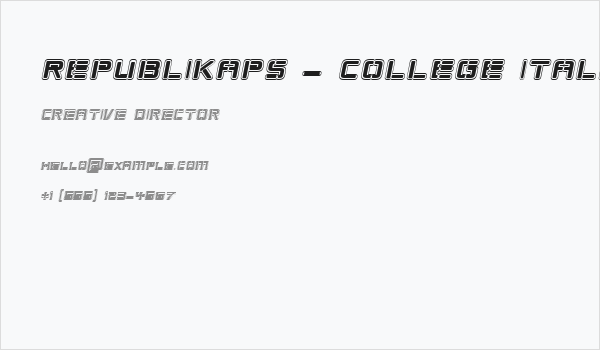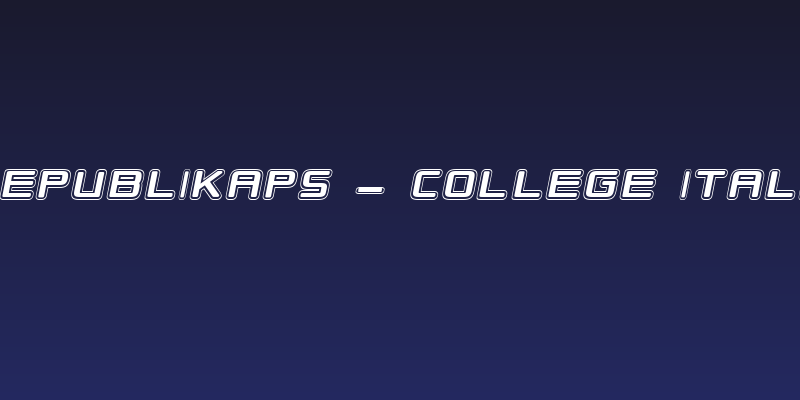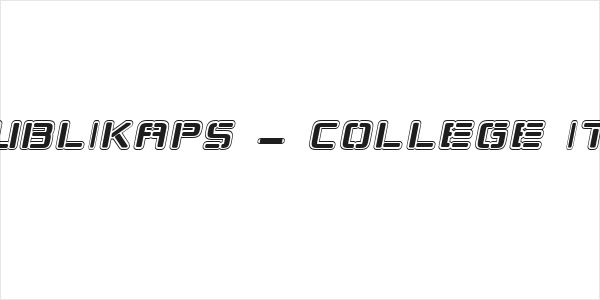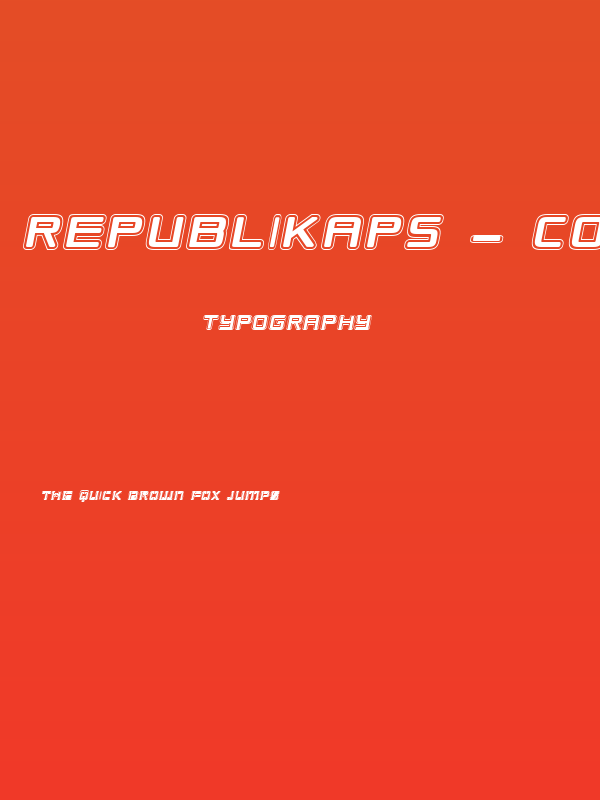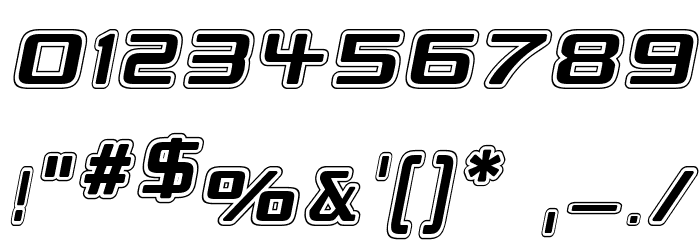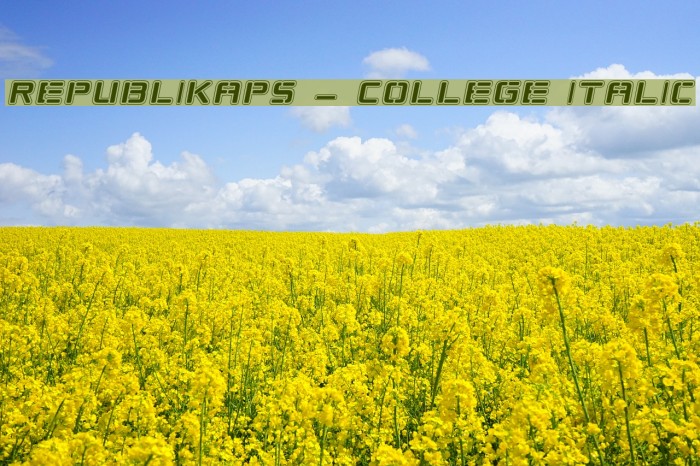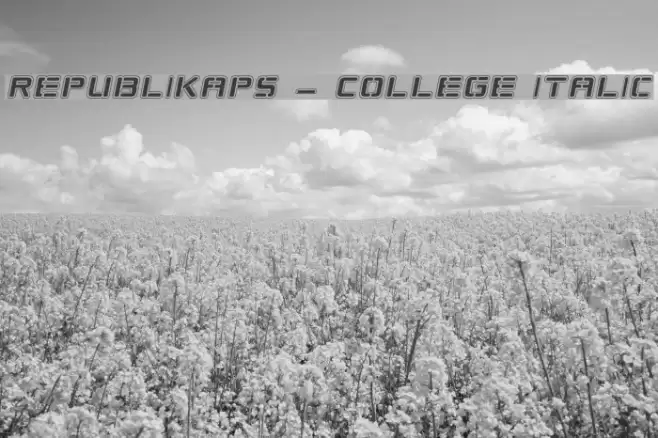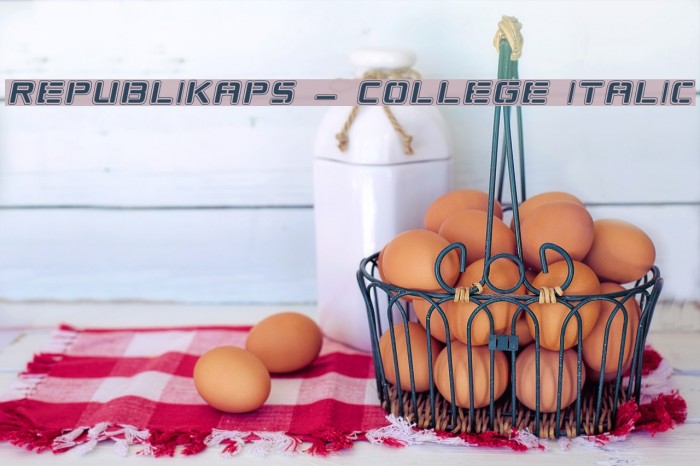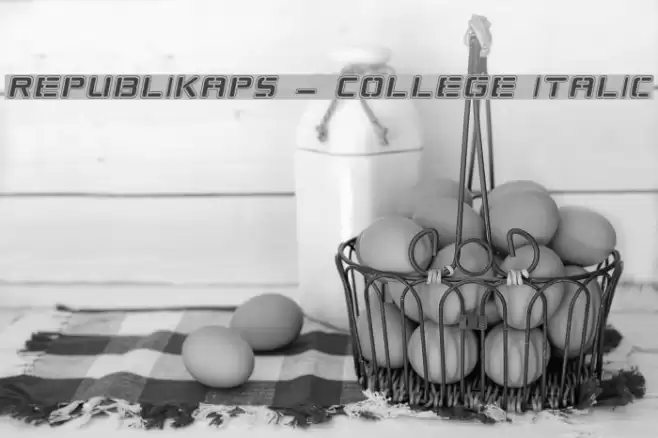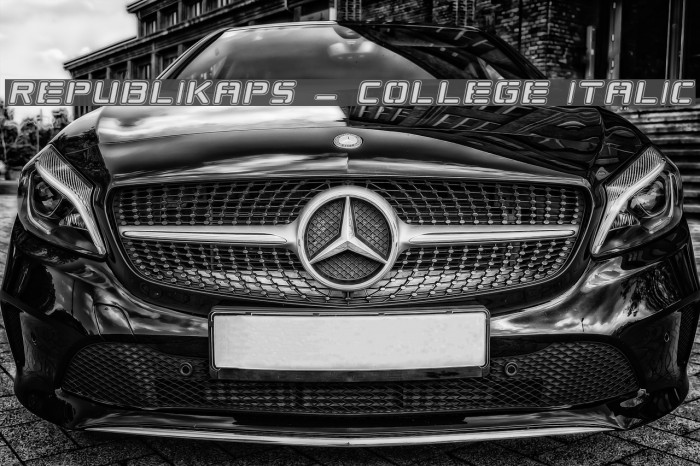
Republikaps - College Italic Font
Republikaps - College Italic Description
This font features a bold, italicized style with a distinct outline effect, giving it a sporty and collegiate appearance. The characters are uppercase and lowercase alphabets, numerals, and a variety of special symbols. Each letter is designed with a double-line structure, creating a sense of depth and dimension. The font's italic slant adds a dynamic and energetic feel, making it suitable for attention-grabbing headlines or titles. The spacing between characters is normal, ensuring readability while maintaining its bold presence. The overall style is modern and decorative, ideal for projects that require a strong visual impact.
| Overall Style | Modern, Decorative |
| Proposed Projects | Ideal for sports team logos, college event posters, and dynamic headlines. |